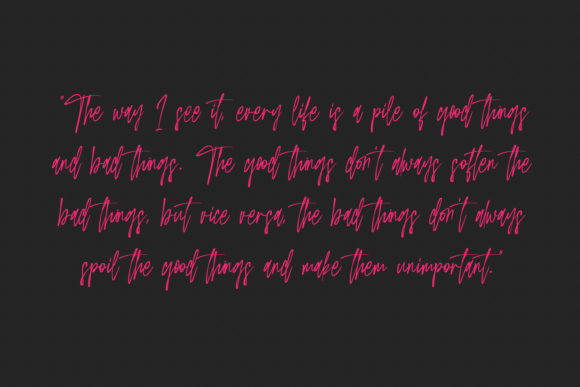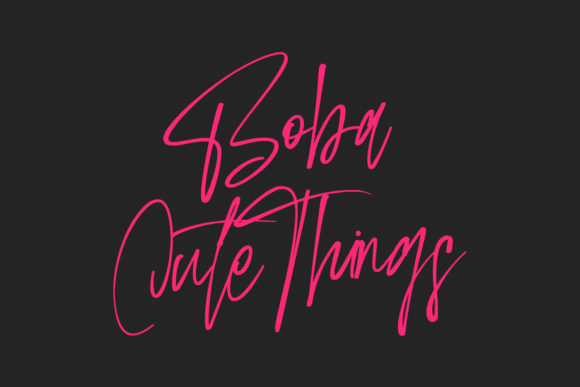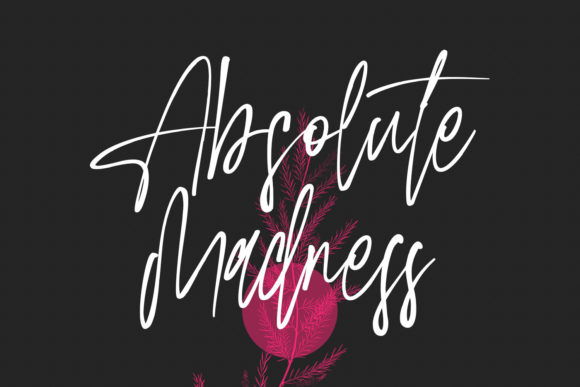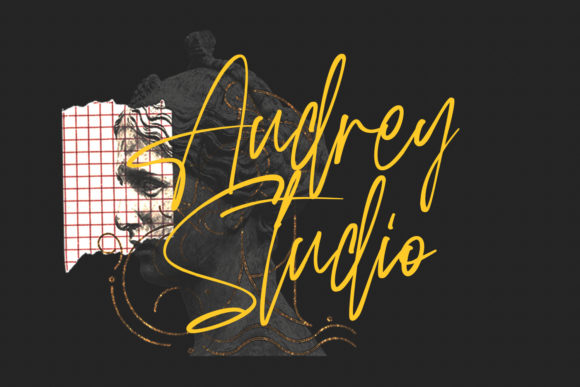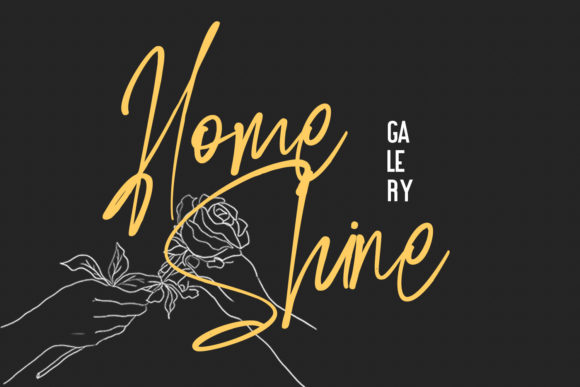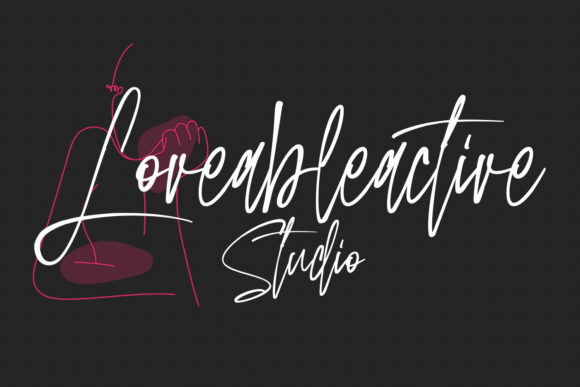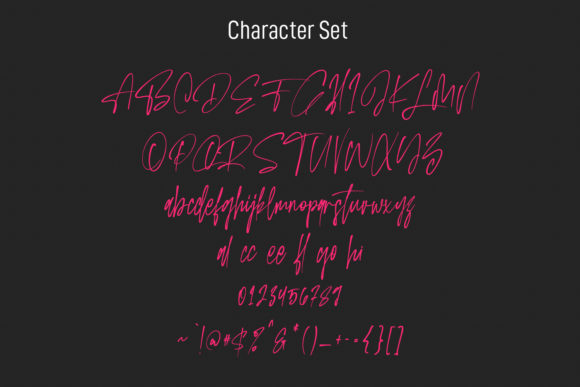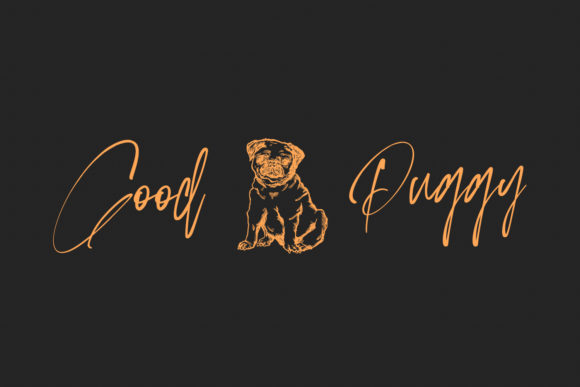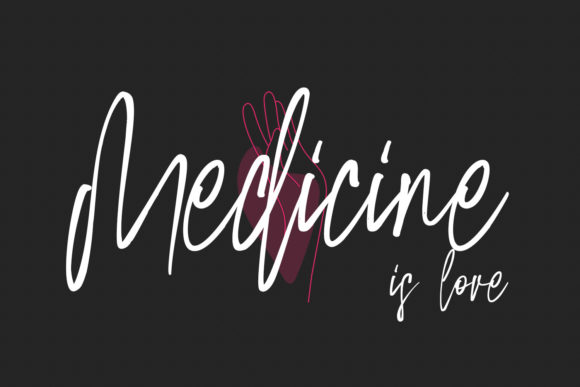
Orbitens Font
About Orbitens Font
Orbitens is a stylish and elegant script font. Fall for its ravishing style and use it to create gorgeous wedding invitations, beautiful stationary art, eye-catching social media posts, and much more!